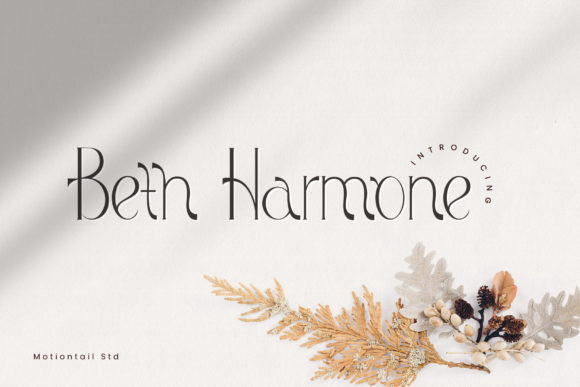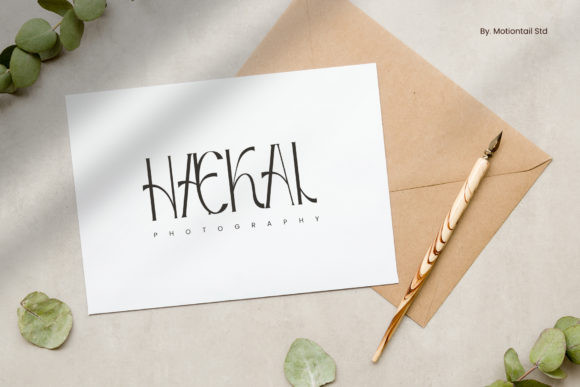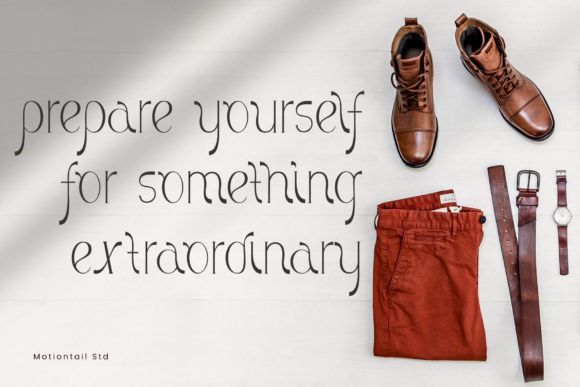
Beth Harmone Font
Beth Harmone is a modern and elegant display font with accents inspired by blackletter fonts. This font is PUA encoded which means you can access the available glyphs and swashes with ease!